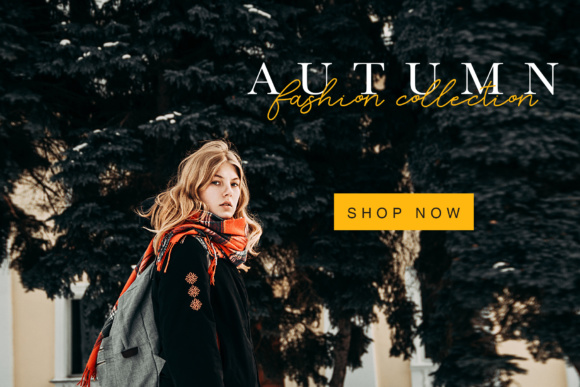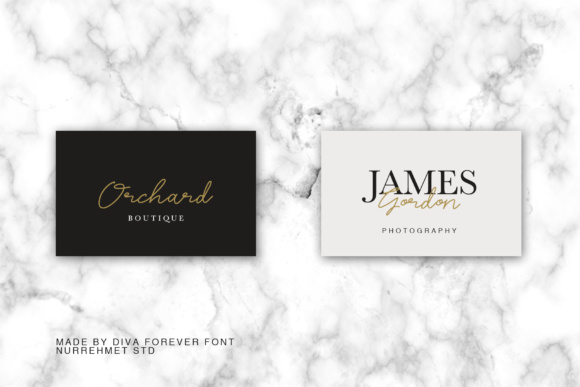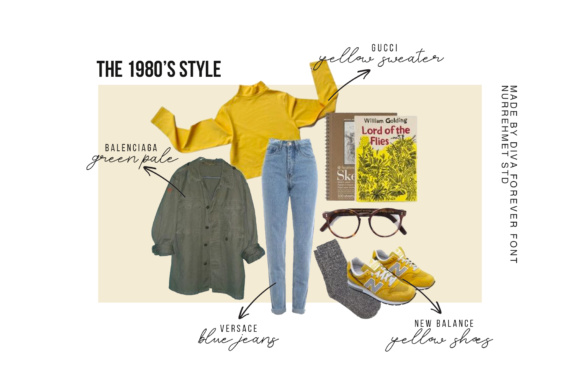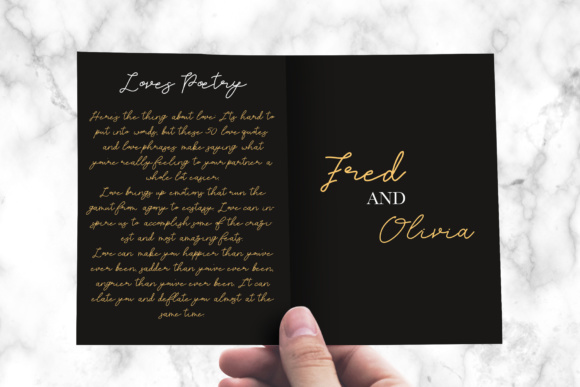
Diva Forever Font: Elevate Your Designs with Elegance and Sophistication
In the world of typography, fonts play a crucial role in conveying the tone and personality of a design. For designers and crafters seeking to add a touch of elegance and femininity to their projects, the Diva Forever Font is an excellent choice. This beautiful, signature font is designed to work seamlessly in a wide range of creative projects, making it a versatile and valuable addition to any designer’s toolkit.
The Essence of Diva Forever Font
Diva Forever Font is characterized by its stunning, feminine aesthetic that exudes sophistication and glamour. Its elegant curves and refined lines make it perfect for fashion-oriented designs, where style and poise are paramount. Whether you’re working on a logo, branding materials, invitations, or any other project that requires a touch of luxury, Diva Forever Font is sure to impress.
Key Features of Diva Forever Font
- Elegant and Feminine: Diva Forever Font boasts a distinctly feminine charm, making it ideal for designs that require a touch of elegance and sophistication.
- Versatile: This font is highly versatile and can be used in a wide range of creative projects, from fashion and beauty to wedding and lifestyle designs.
- Signature Style: Diva Forever Font has a unique, signature style that sets it apart from more generic fonts, allowing your designs to stand out.
- Easy to Read: Despite its elegant and cursive nature, Diva Forever Font remains clear and easy to read, making it suitable for both headings and body text.
Using Diva Forever Font in Your Designs
Incorporating Diva Forever Font into your designs is straightforward, thanks to its compatibility with various design software and platforms. Here are some ideas on how to use this beautiful font:
- Fashion and Beauty Branding: Use Diva Forever Font for logos, business cards, and packaging to give your brand a luxurious and high-end feel.
- Wedding Invitations and Stationery: Add a touch of elegance to wedding invitations, save-the-date cards, and other stationery with this font.
- Lifestyle and Wellness: Perfect for lifestyle and wellness brands looking to convey a sense of sophistication and elegance.
- Digital and Print Media: Use Diva Forever Font in digital banners, social media graphics, and print advertisements to capture attention and convey a sense of luxury.
Tips for Pairing Diva Forever Font
To maximize the impact of Diva Forever Font, consider pairing it with complementary fonts that enhance its elegance and readability. Here are some tips:
- Contrasting Fonts: Pair Diva Forever Font with a clean, sans-serif font for contrast and to create visual interest.
- Script and Serif Combinations: For a more luxurious feel, combine Diva Forever Font with another elegant script or a classic serif font.
- Consider Hierarchy: Use size and weight variations to create a visual hierarchy, ensuring that your design communicates effectively.
Diva Forever Font is a stunning addition to any designer’s collection, offering a unique blend of elegance, sophistication, and femininity. Its versatility and readability make it suitable for a wide range of projects, from fashion and beauty to wedding and lifestyle designs. By incorporating Diva Forever Font into your designs, you can instantly elevate your work, making it more captivating and memorable. Whether you’re a professional designer or a crafter, this beautiful font is sure to inspire and enhance your creative projects.